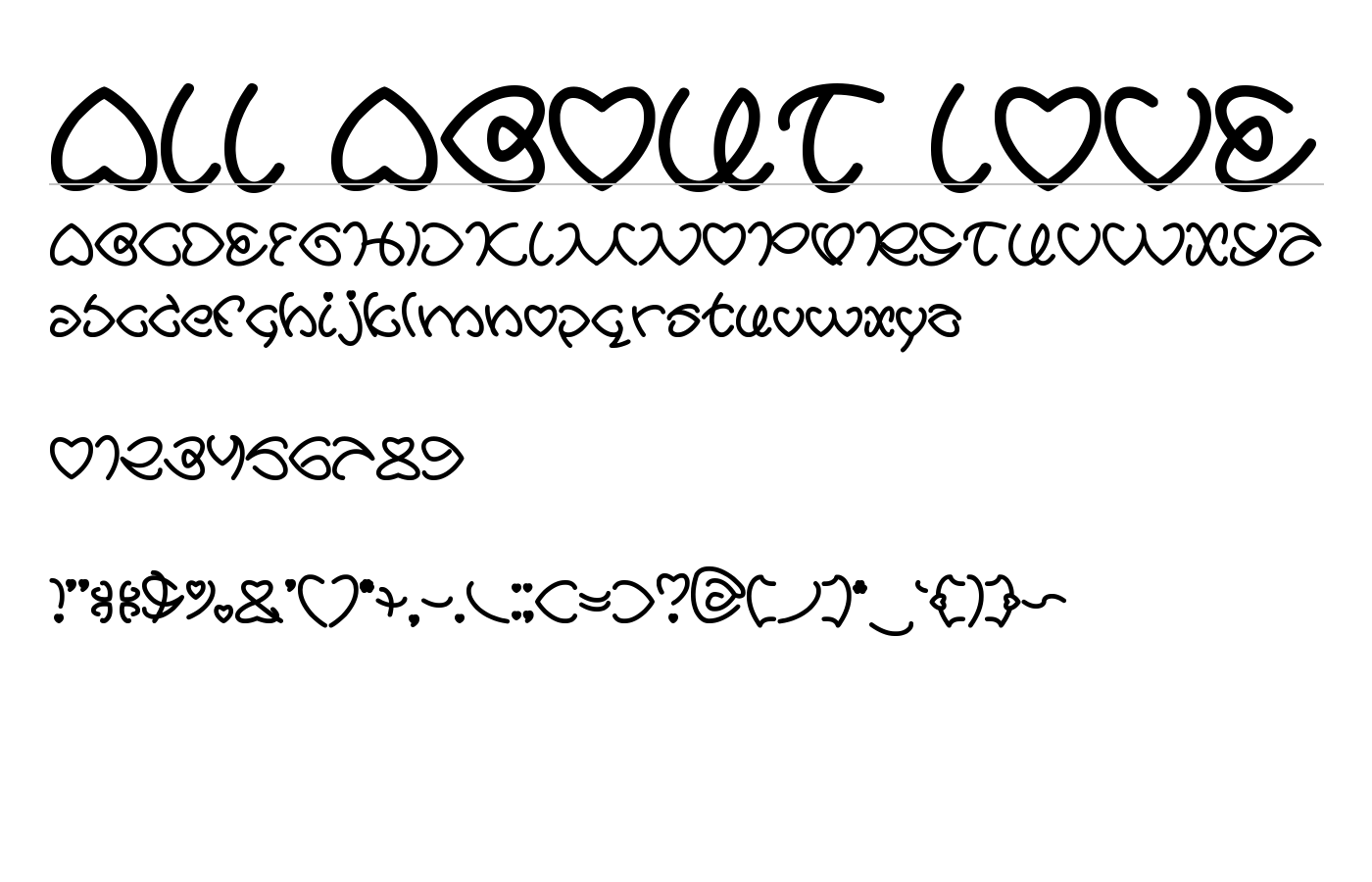
ALL ABOUT LOVE is a playful, hand-drawn script font characterized by its rounded, whimsical letterforms and heart-shaped motifs integrated into multiple characters, giving it a warm and affectionate feel. Its light weight and fluid strokes make it perfect for creative, romantic designs such as greeting cards, invitations, and branding that seeks to convey love and charm in a fun, casual way.
ALL ABOUT LOVE Font
About ALL ABOUT LOVE Font